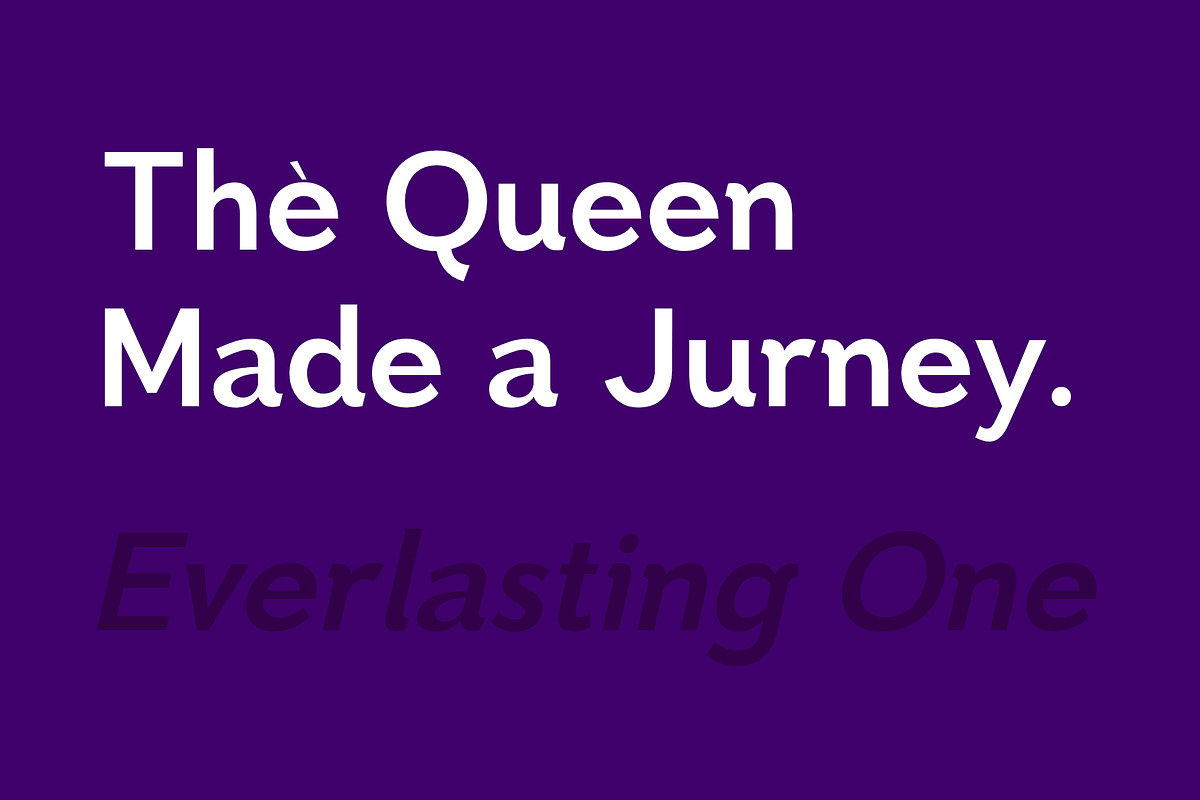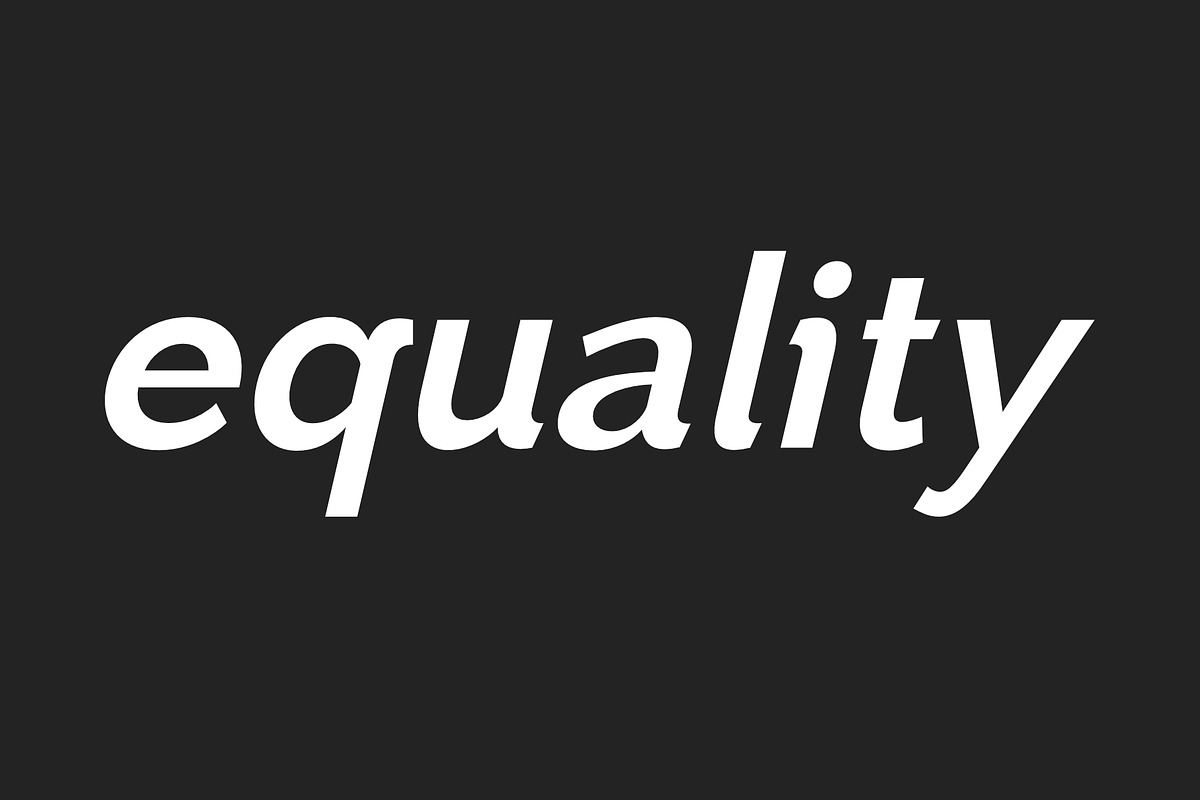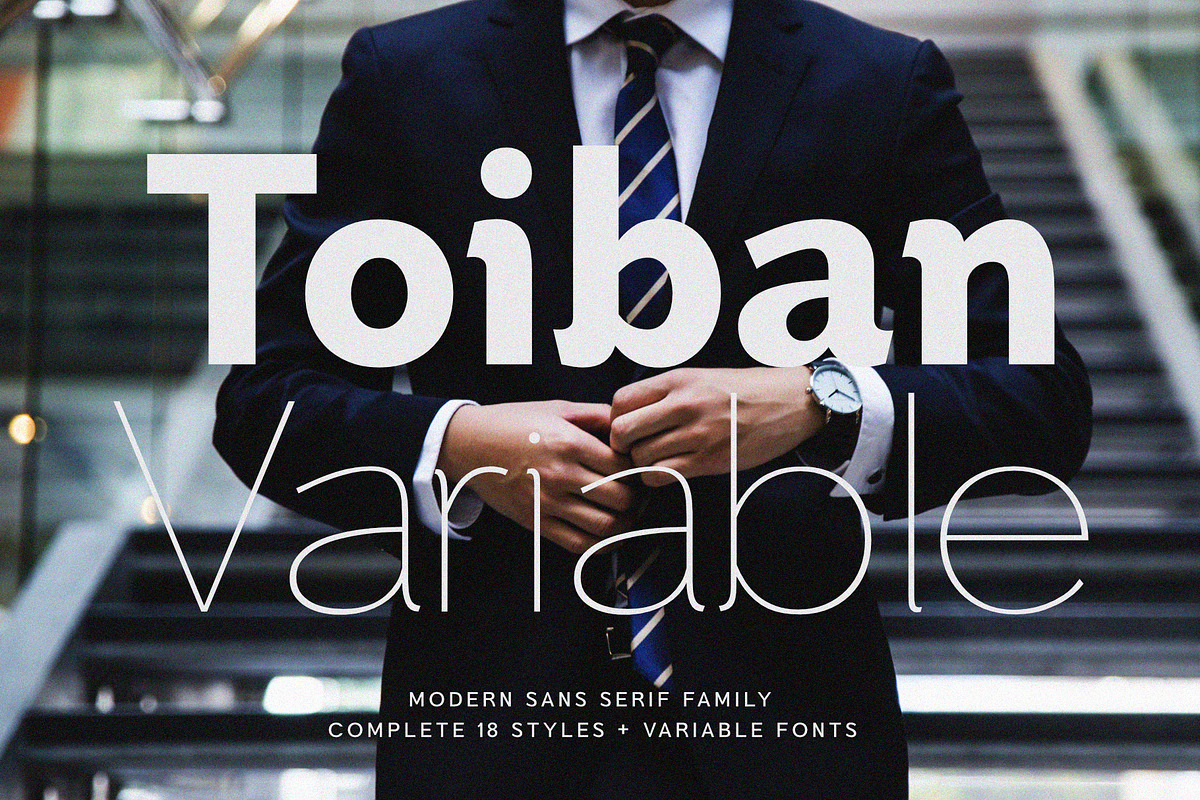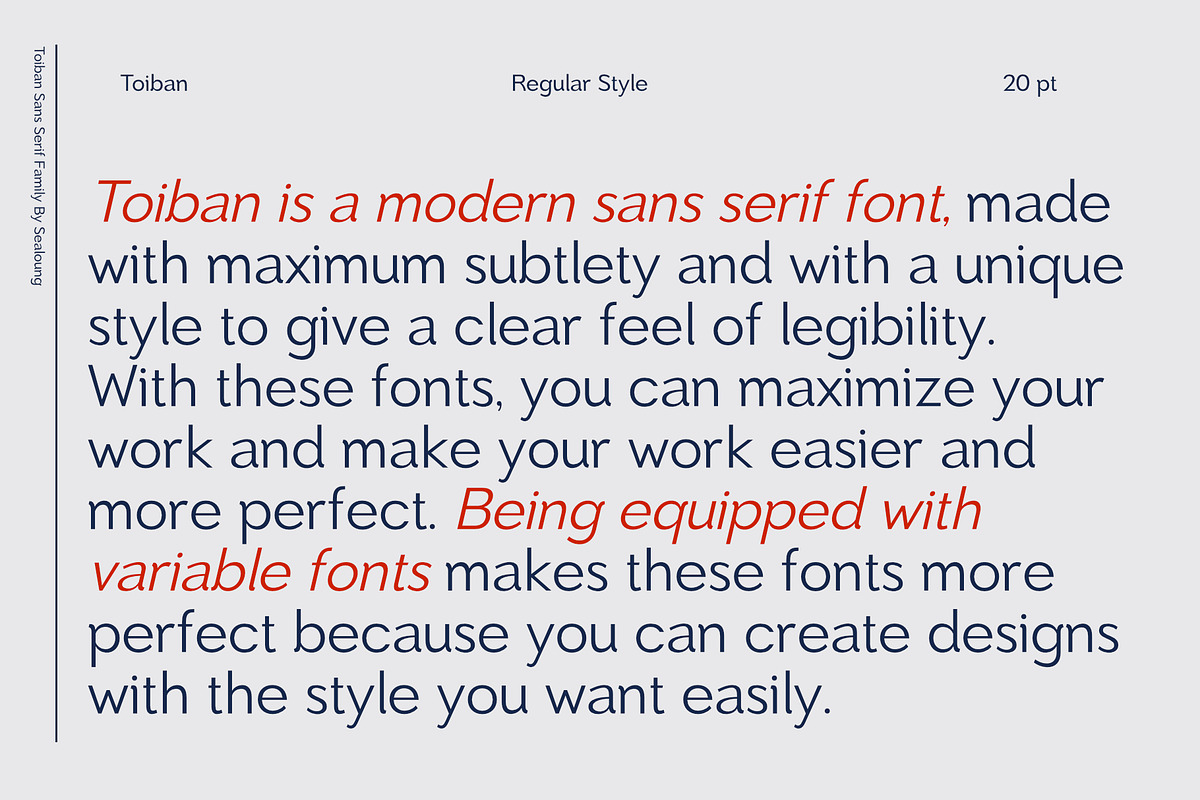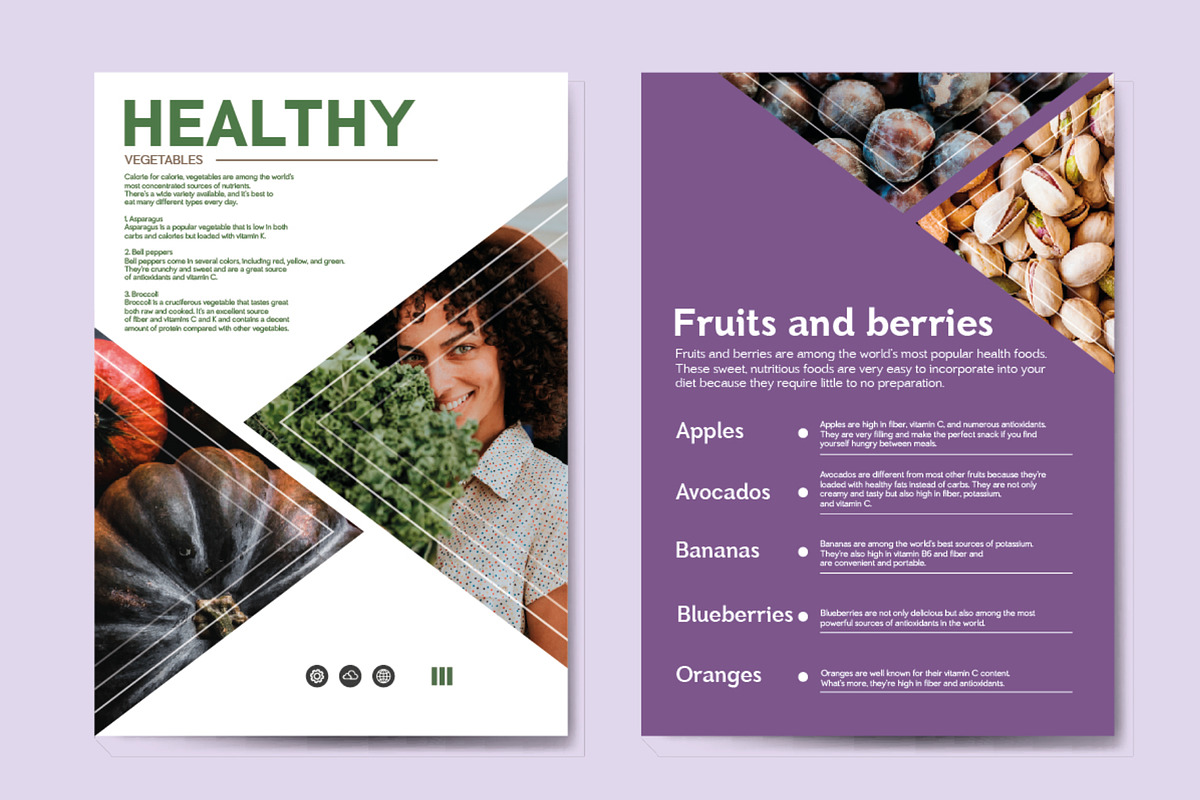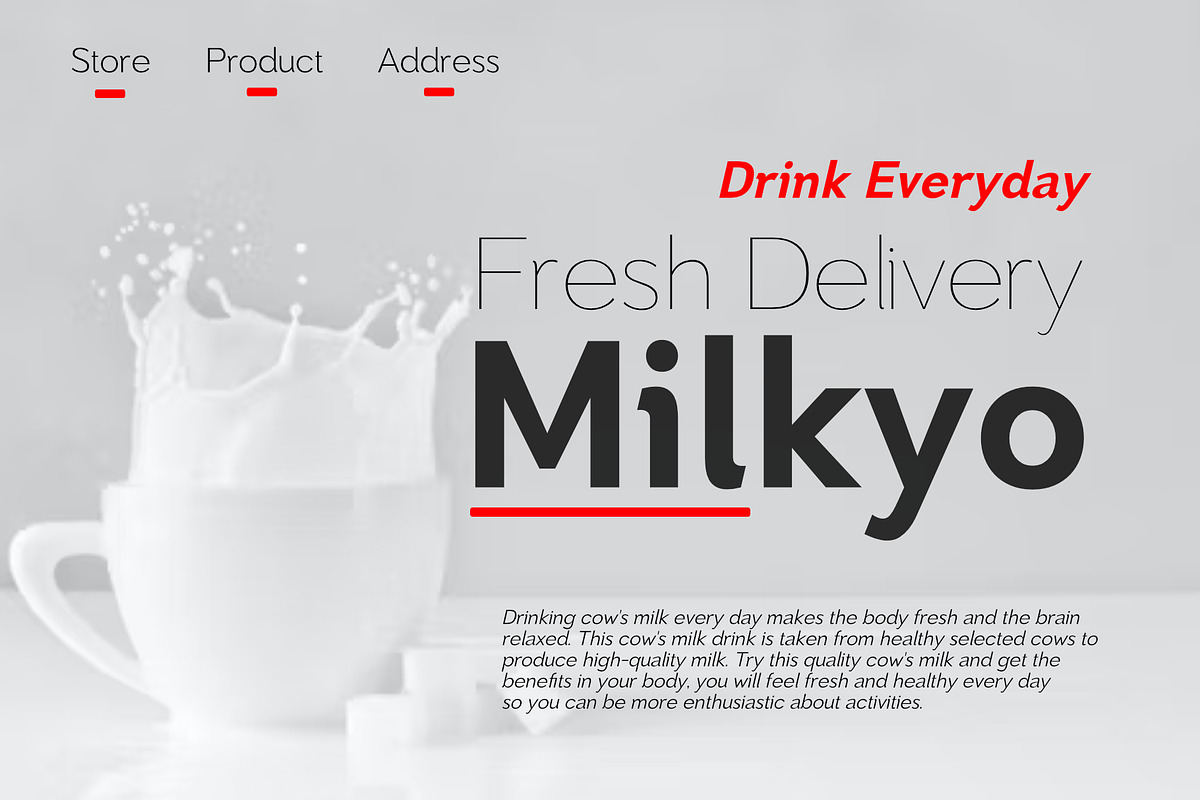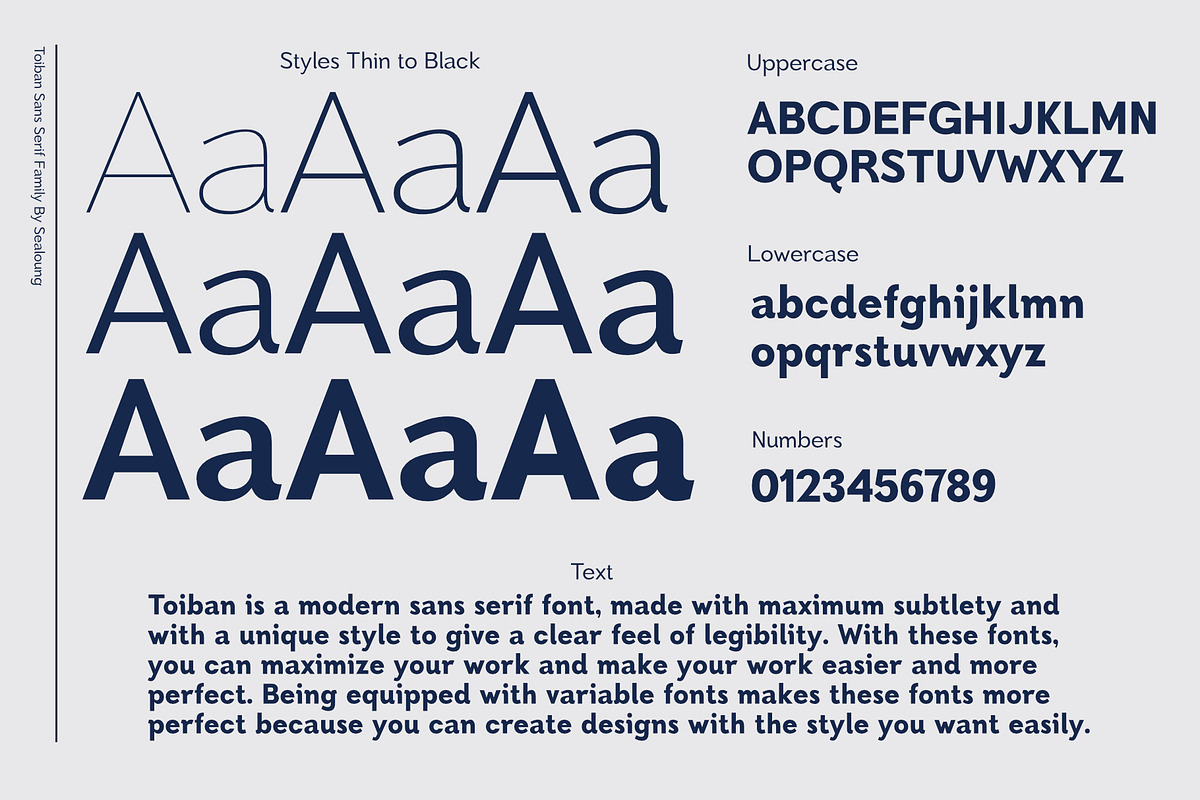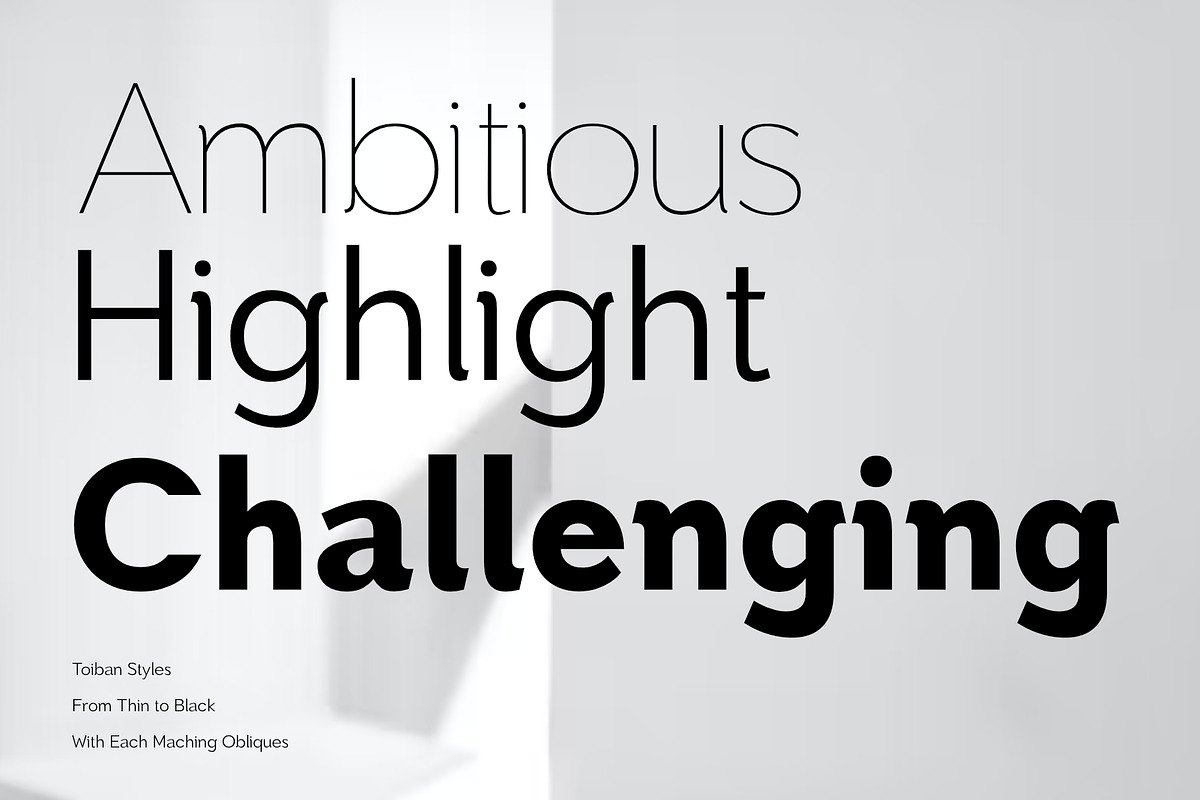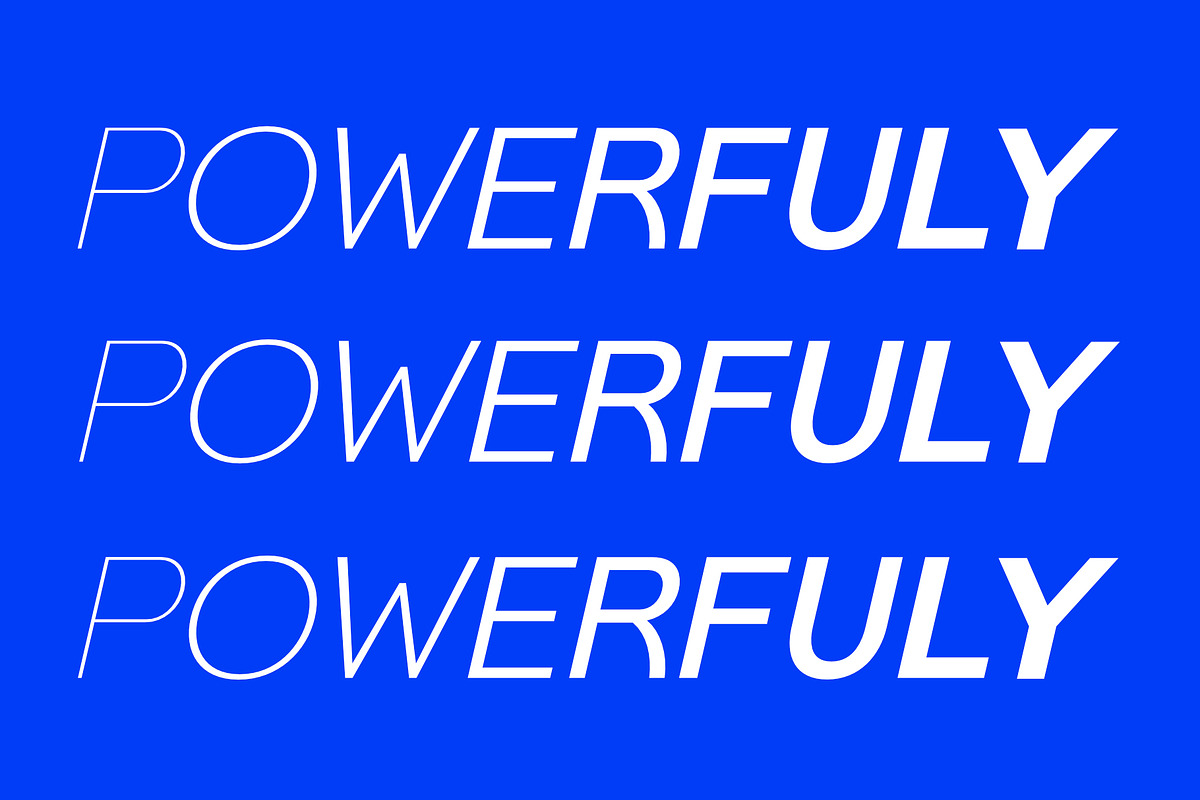
Toiban Font Family
Toiban is a classy modern sans serif font. Each Toiban glyph has been modernly drawn and designed for this expansive new edition, which maintains the Swiss mantra of clarity, simplicity and neutrality for the demands of contemporary design and branding.
The larger View version is drawn to show off Toiban's subtlety and is spaced with the headline in mind, while the Text size focuses on readability, using strong strokes and comfortable loose spaces. The Toiban struggles to be legible at a small size because of its compactness and closed aperture. The Toiban Micro's design is simplified and exaggerated to maintain impression in small, loosely spaced type, providing excellent legibility at microscopic sizes and in low-resolution environments.